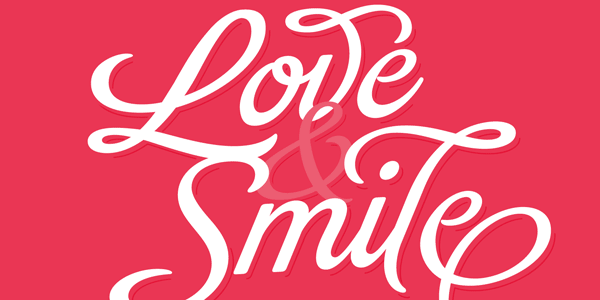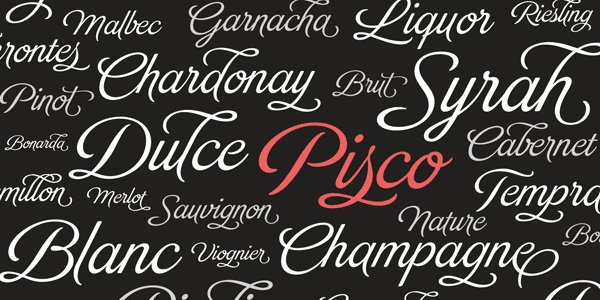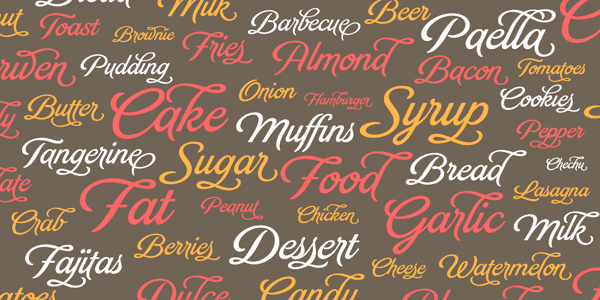
Brand – Vintage Script Font.
If you are looking for a script font like you know from typical vintage designs and advertisings, you need to check out the Brand font. Type designer Maximiliano Sproviero from Buenos Aires created this soft cursive typeface in 2013 (Font Foundry: Lián Types). This vintage inspired type family works great for any kind of retro designs, packaging, magazine headlines, invitations or logotypes. The lovely script typeface looks very appealing and harmonious. Brand’s pro styles include several features such as alternates, ligatures and ornaments. The complete font family is available as Webfont and Desktop font.